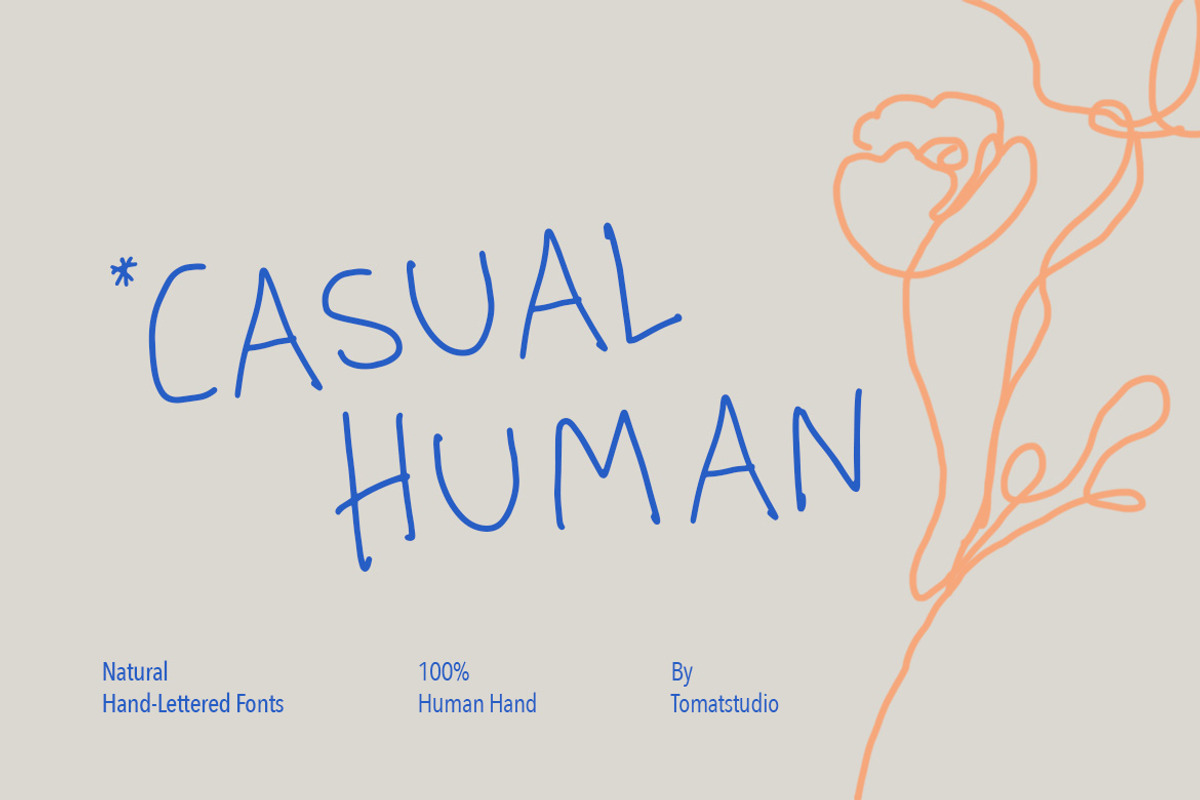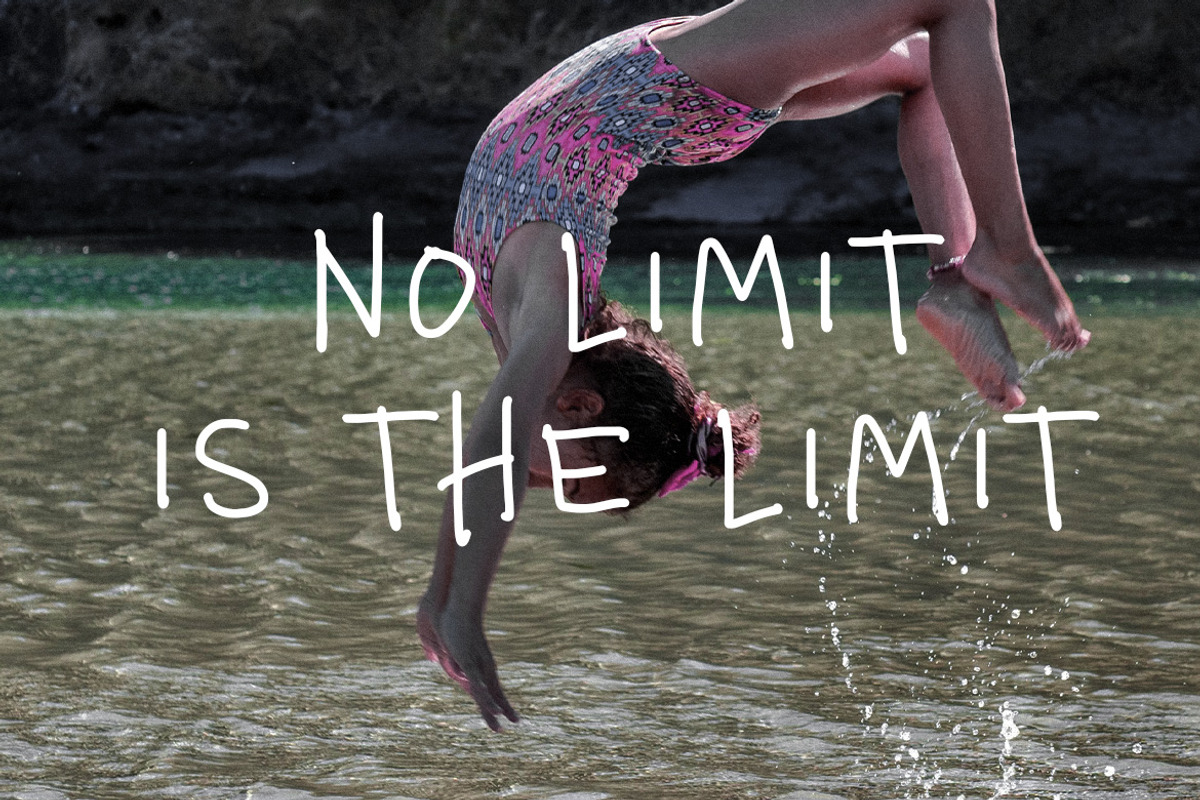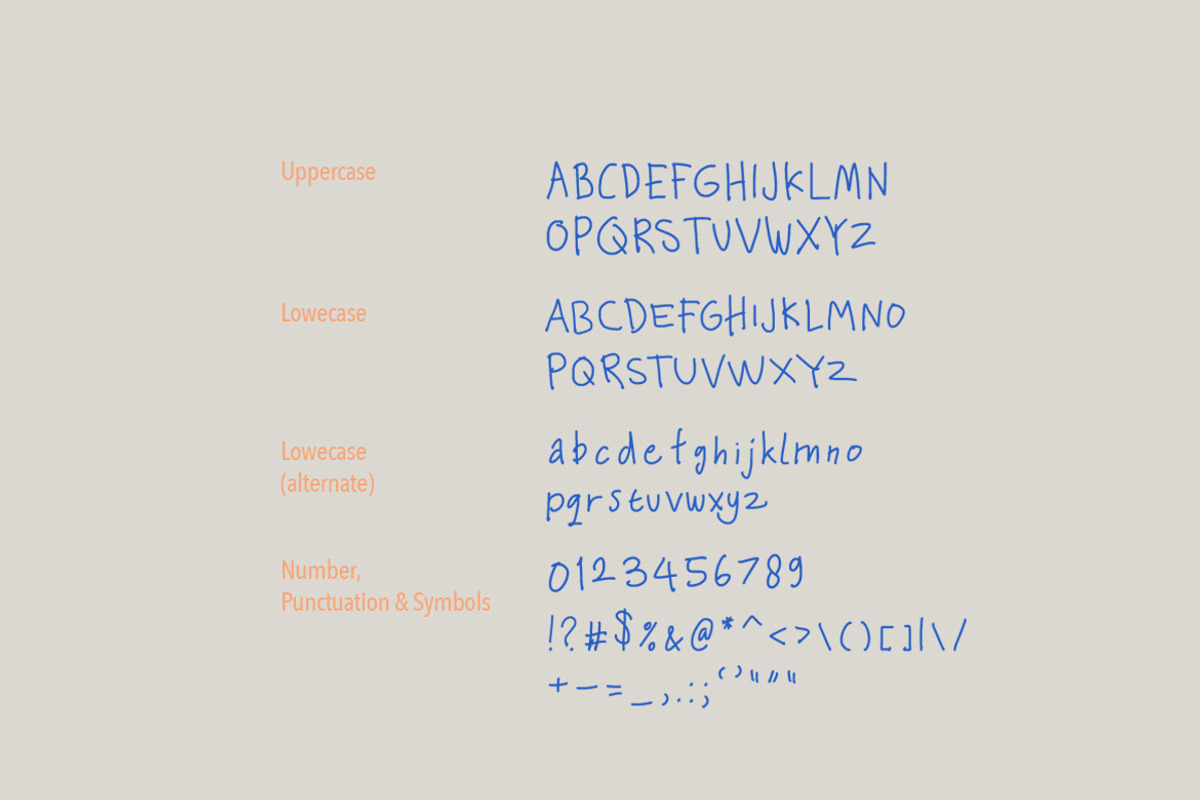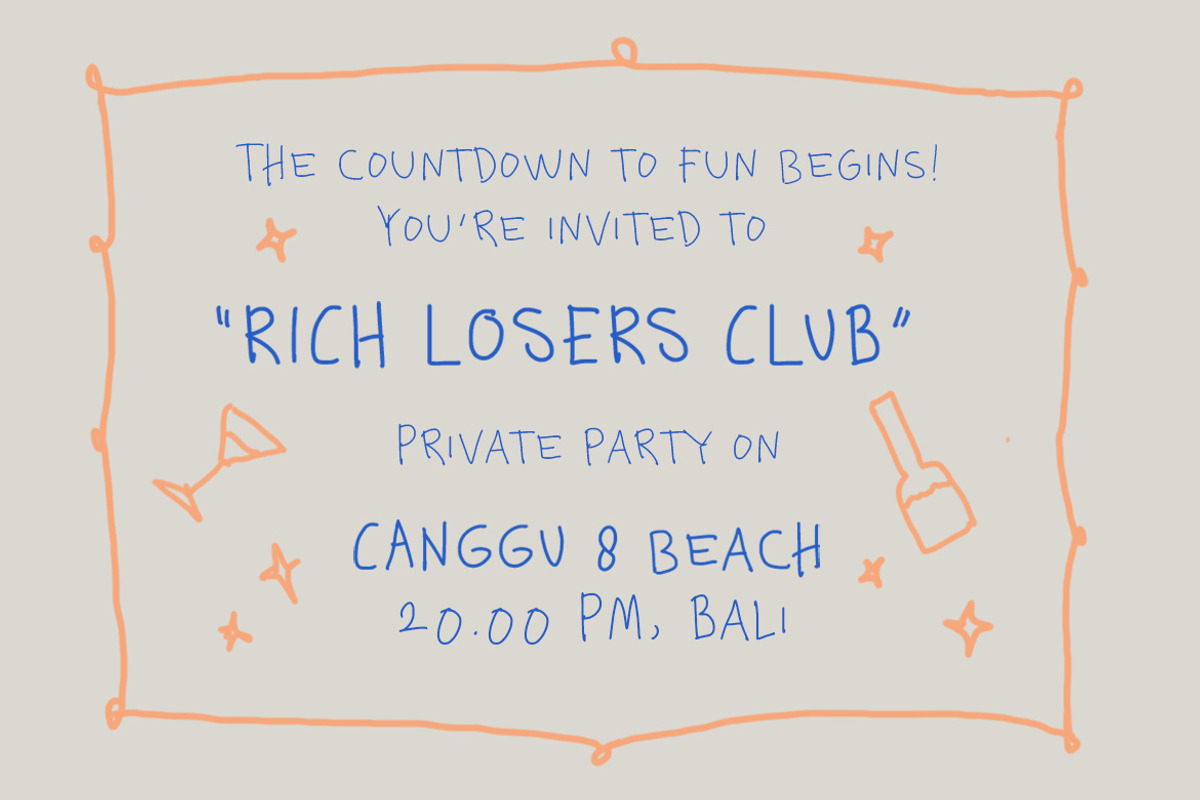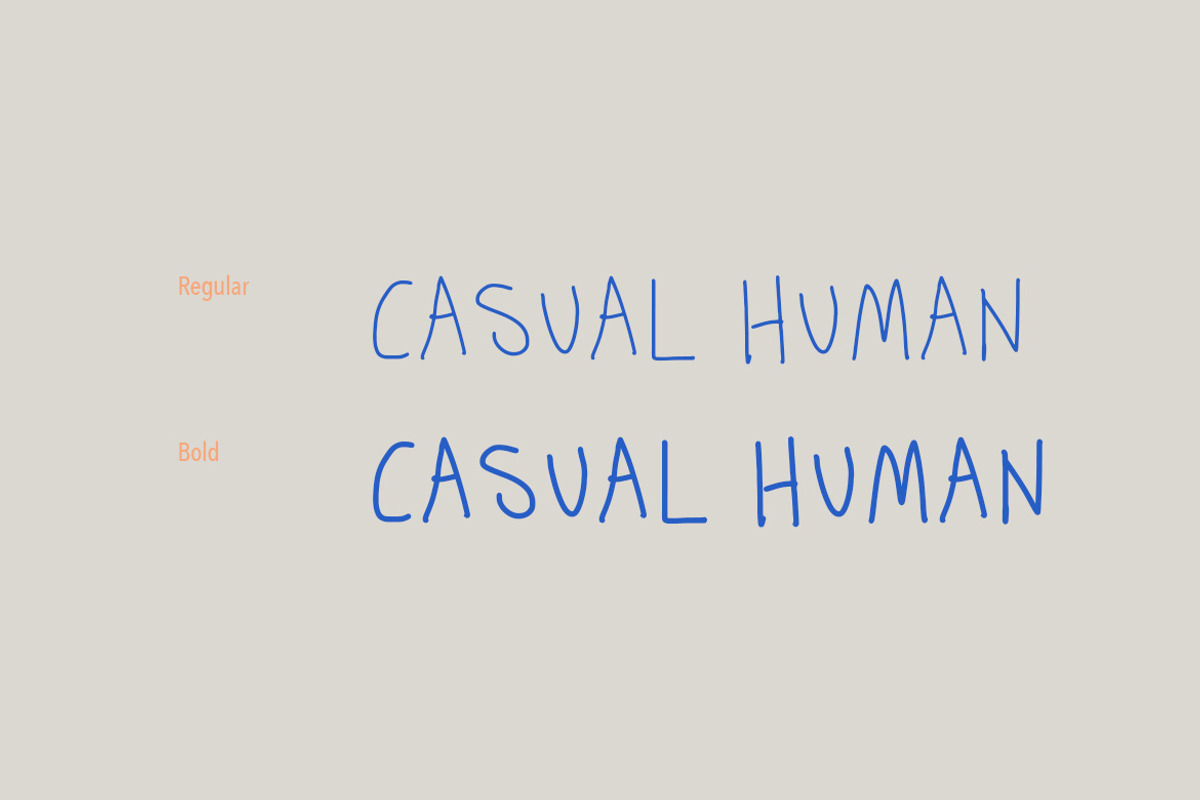
Casual Human Fonts
Casual handwriting by human hands, created naturally and 100% hand lettering to make it unique and rough feel. Perfect for rough , kids, and natural theme design, in this package you'll get regular and bold version. Cheers!